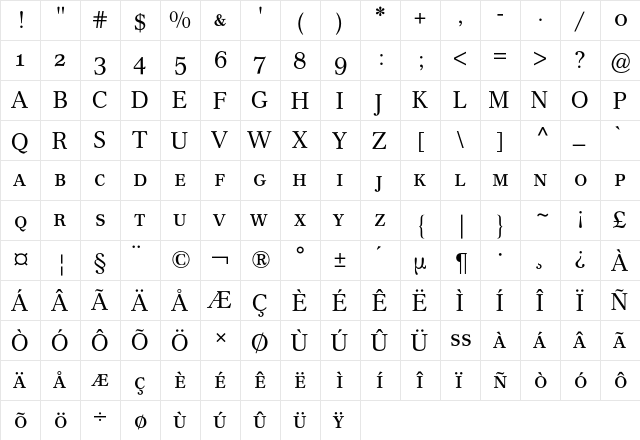
Cremona Expert BQ Regular
Design Context for Cremona Expert BQ Typeface
Cremona Expert BQ is a composed and adaptable typeface that performs quietly and consistently across a wide range of design contexts.